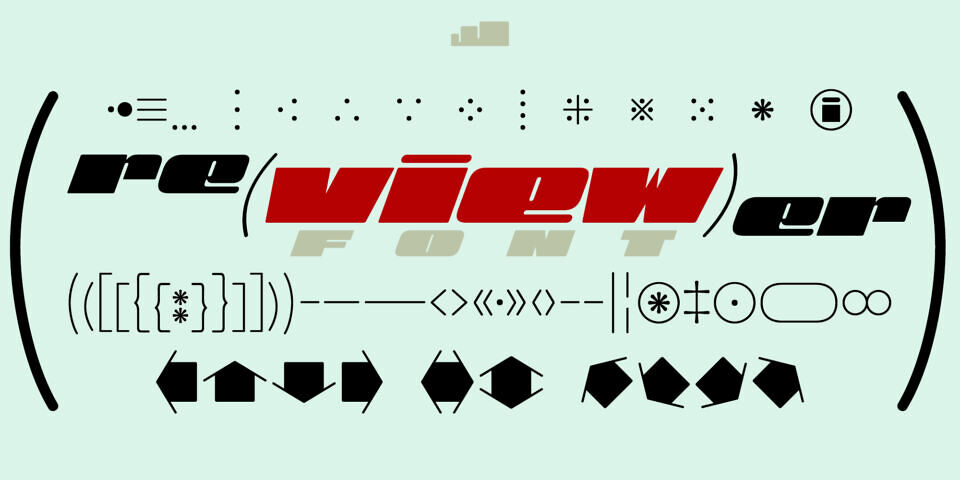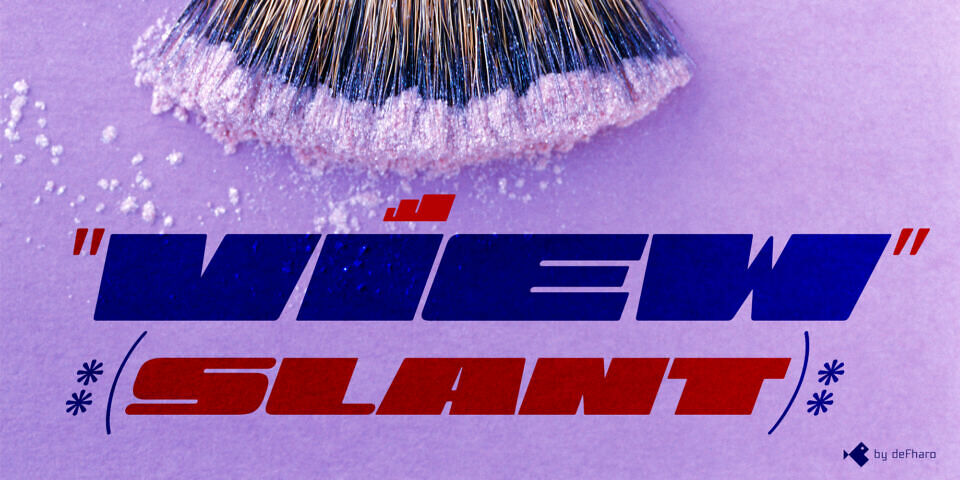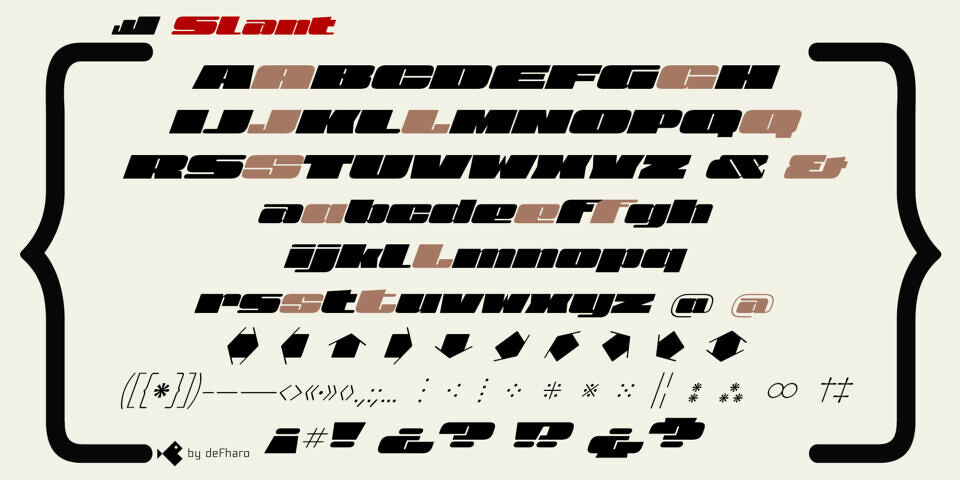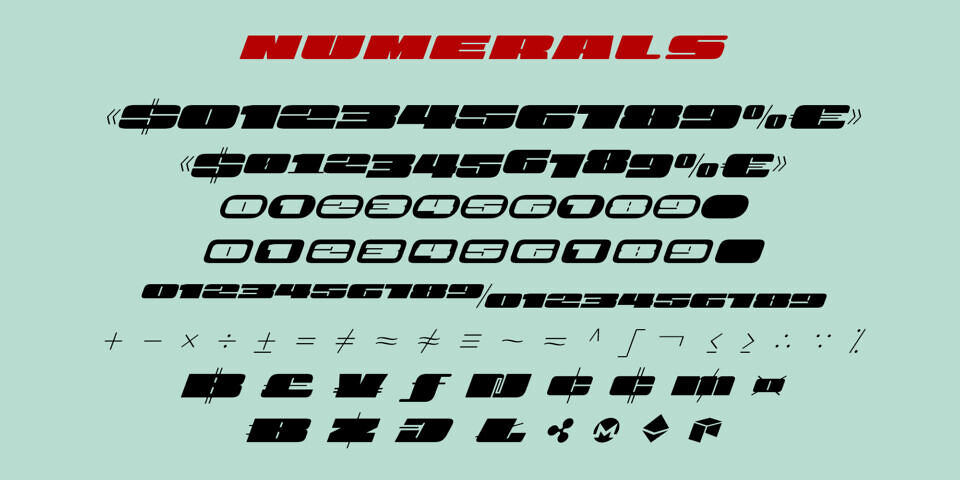
View Slant Font
View is designed to stand out, make an impact, and dominate any visual space with elegance. Its exaggeratedly wide proportions and black weight don’t ask for permission: each letter is a statement of presence, an explosion of character that doesn’t go unnoticed. It’s made for those who appreciate the impact of super-thick and extra-wide typefaces.
Its shapes are pure power, with a perfect balance between the strength of the Roman style and the dynamism of the Slanted. Ideal for headlines that want to be heard, for brands that want to stand out, or for designs that demand character.